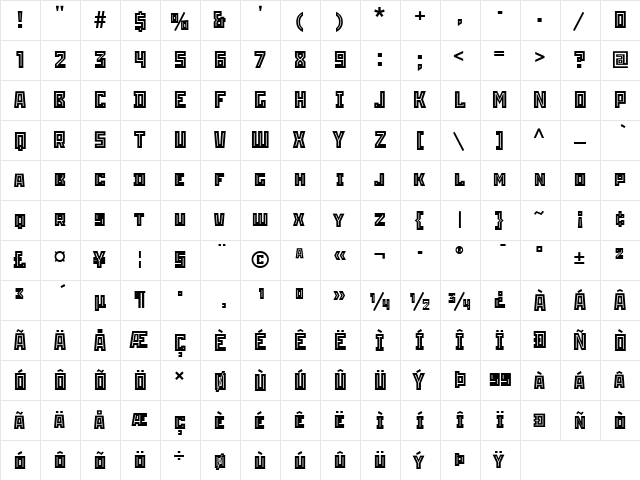
Stenberg Inline ITC Regular
Design Context for Stenberg Inline ITC Typeface
Stenberg Inline ITC brings ornamental detail and strong personality to headlines and identities, where visual impact matters more than quiet functionality.
Font Pairing: Pair with a clean neutral sans-serif for body copy to let Stenberg Inline ITC's character lead without overwhelming the composition.
Pro Tip: Use Stenberg Inline ITC exclusively at display sizes — it was designed to be seen, not read at length. Let a neutral companion handle body copy.